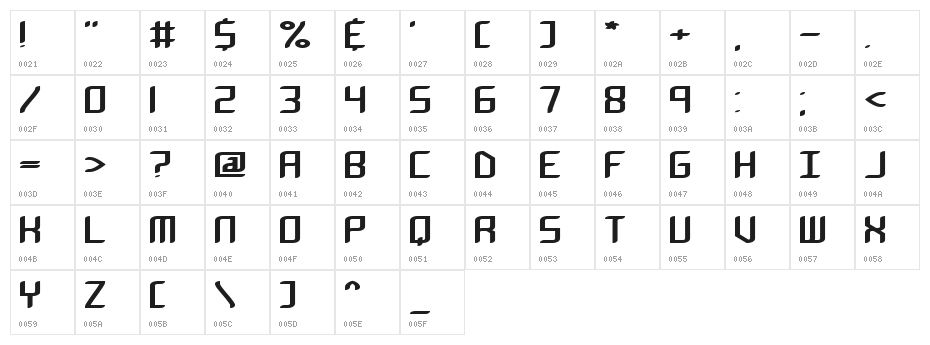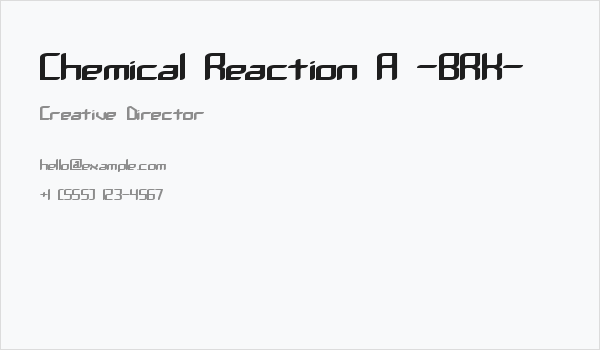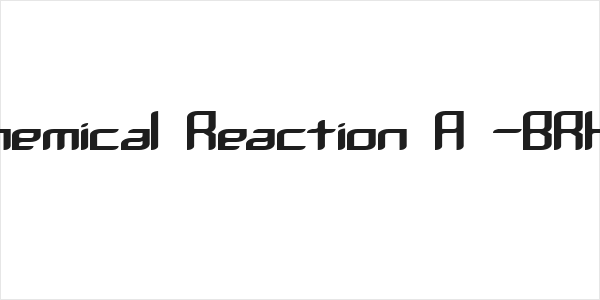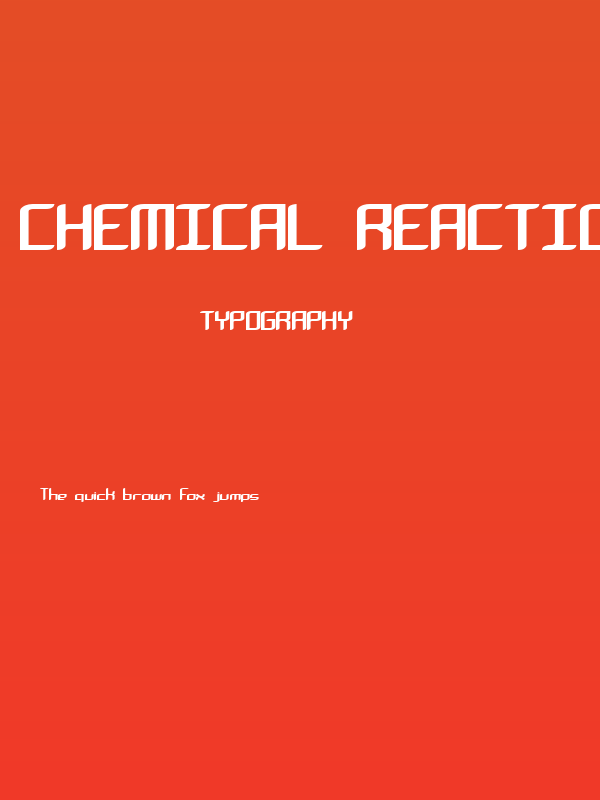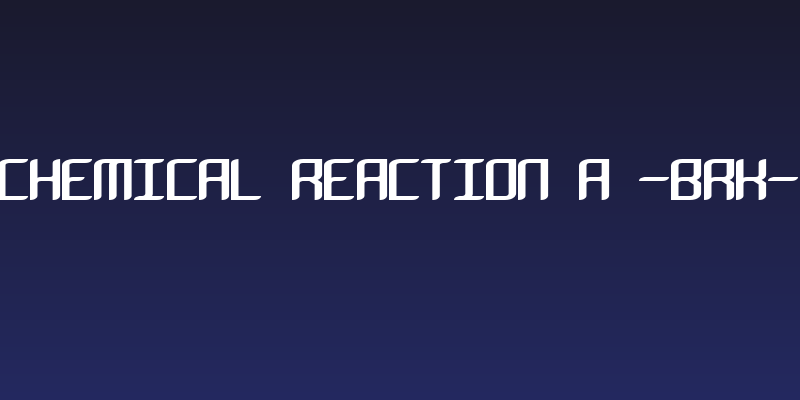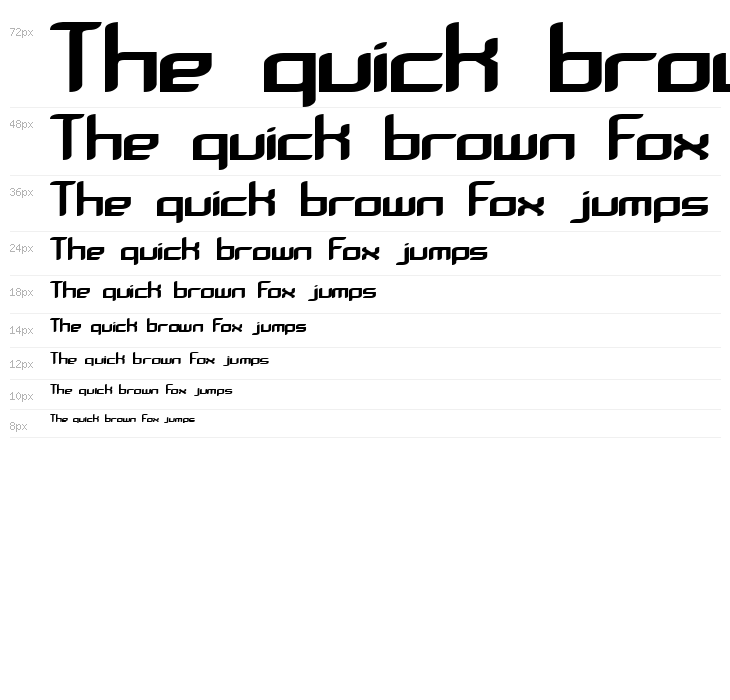
Chemical Reaction A -BRK- Font
Chemical Reaction A -BRK- Description
This font features a futuristic and geometric design with a distinct angular style. The characters are bold and have a unique cut-out effect, giving them a modern and tech-inspired appearance. The uppercase letters are uniform in height, while the lowercase letters maintain a consistent baseline with slight variations in height. The numerals are clear and easy to read, matching the overall style of the alphabet. Special characters are designed with the same angular and bold characteristics, ensuring consistency throughout the font. This typeface is ideal for projects that require a modern and edgy look.
| Proposed Projects | Ideal for tech branding, sci-fi posters, video game titles, and modern advertising. |